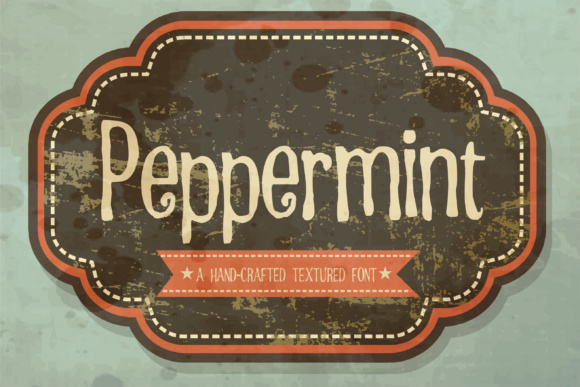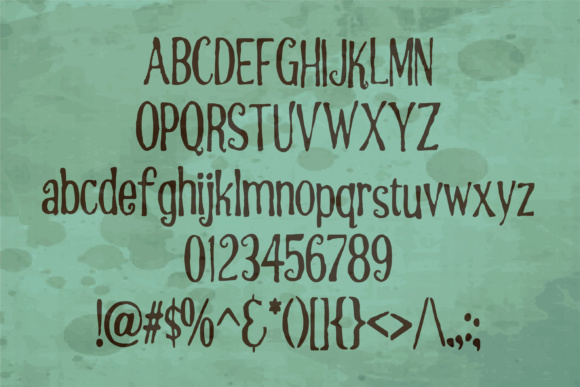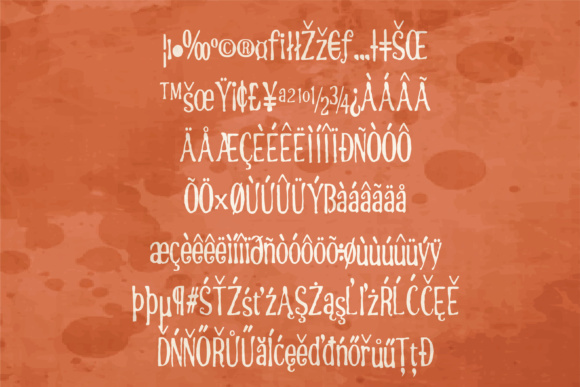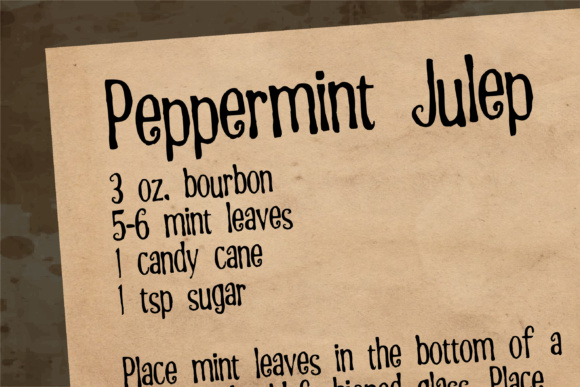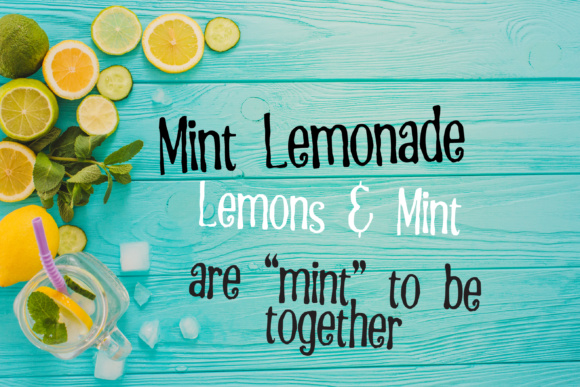
Peppermint Font
About Peppermint Font
This hand-crafted font has a bit of texture throughout but it still remains a great font for using on craft and cutting machines.